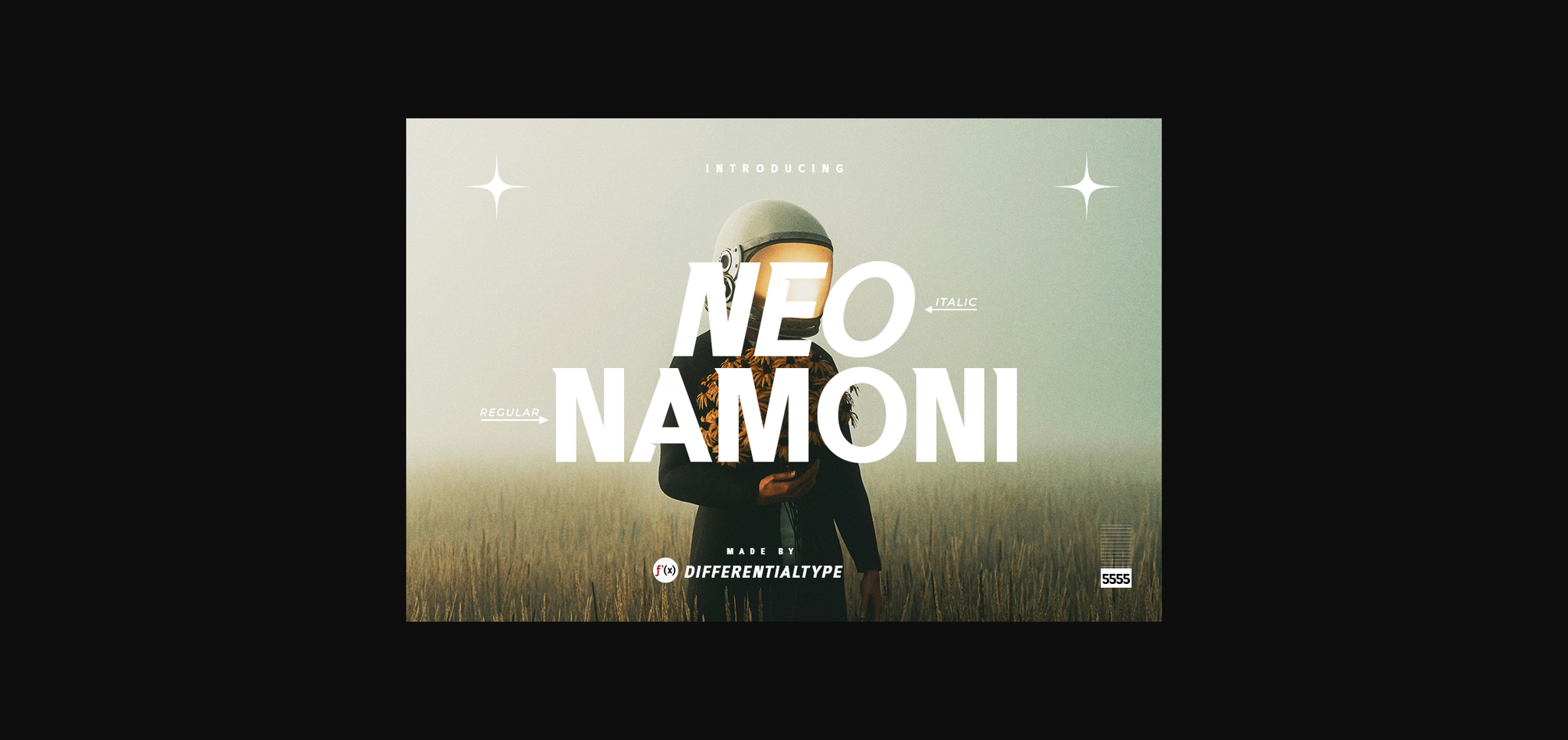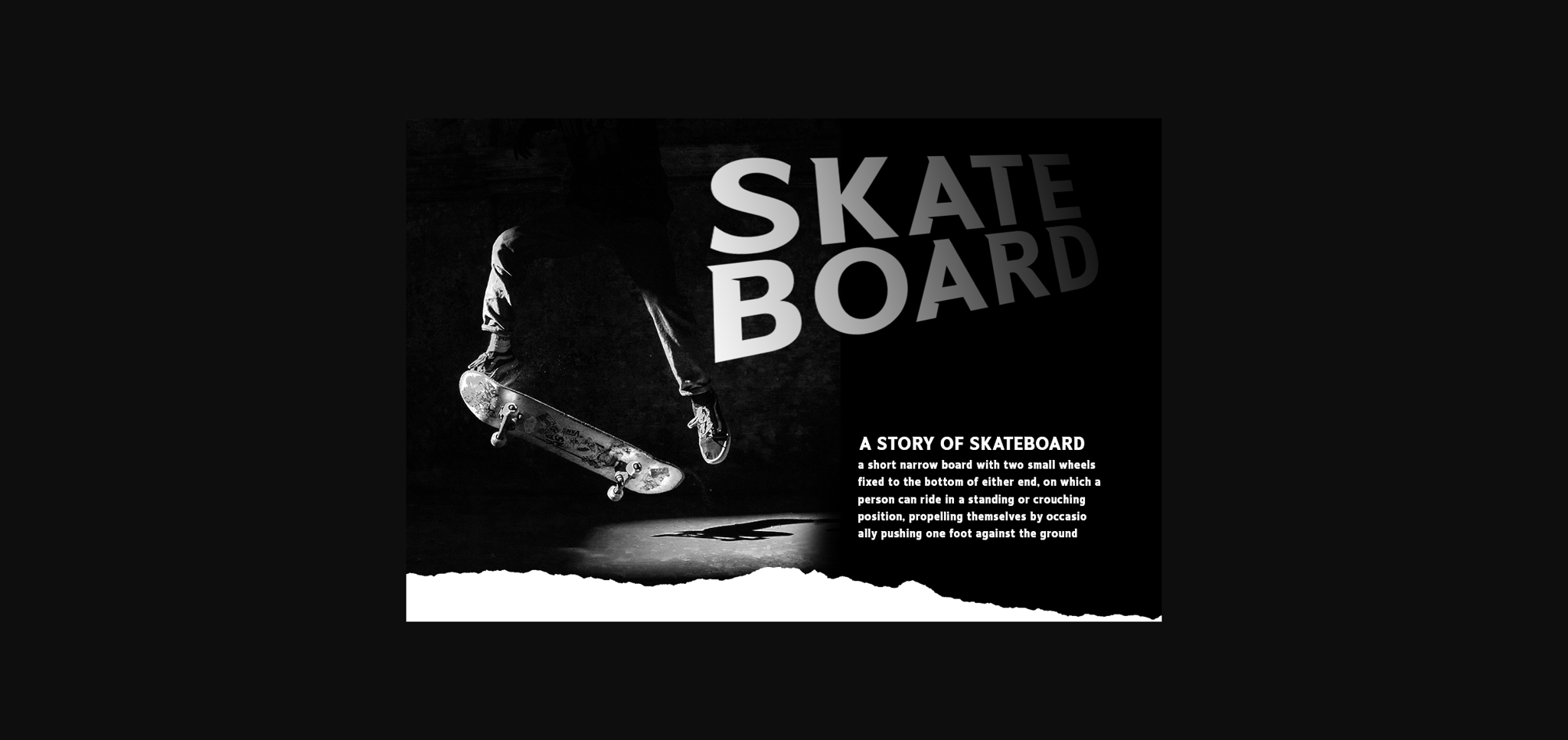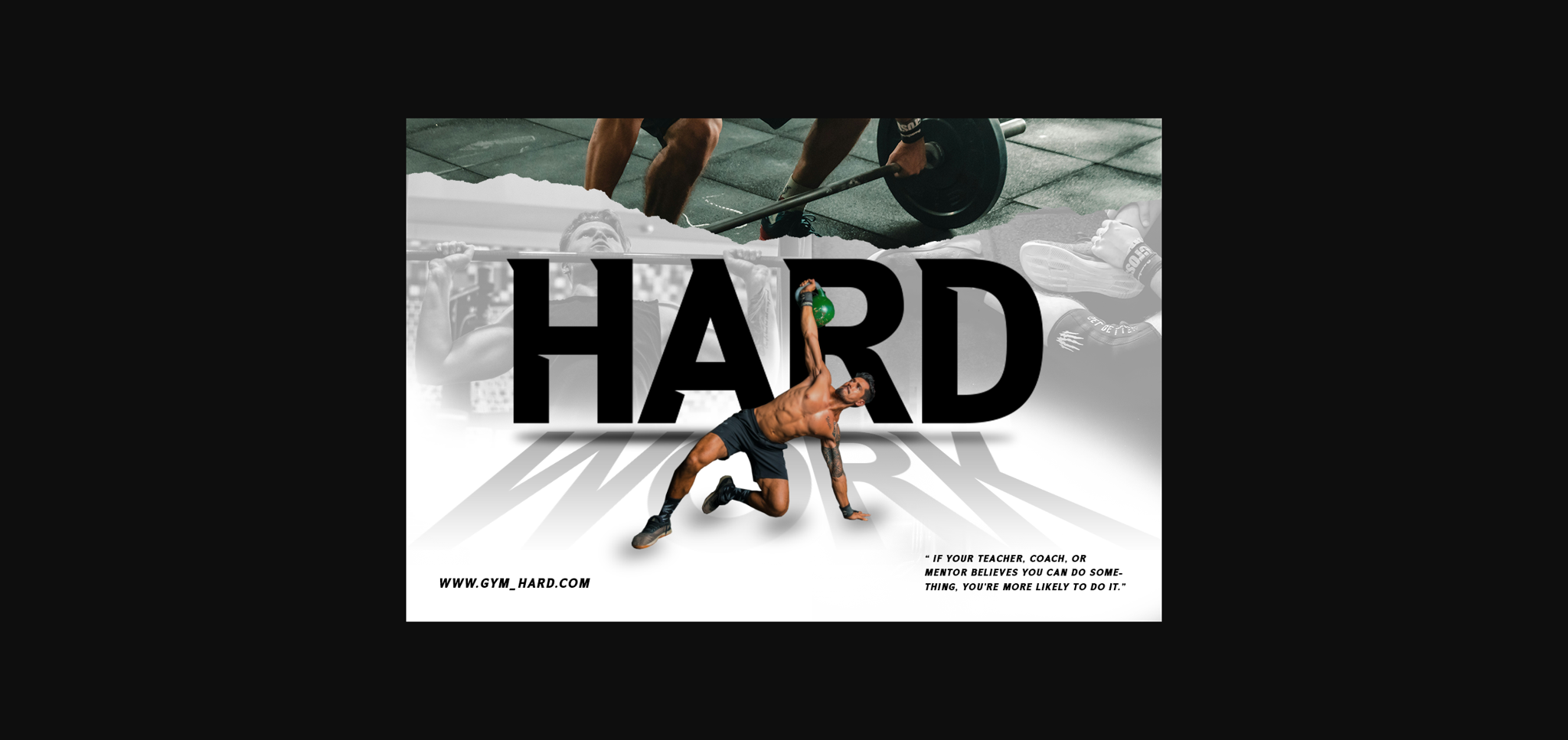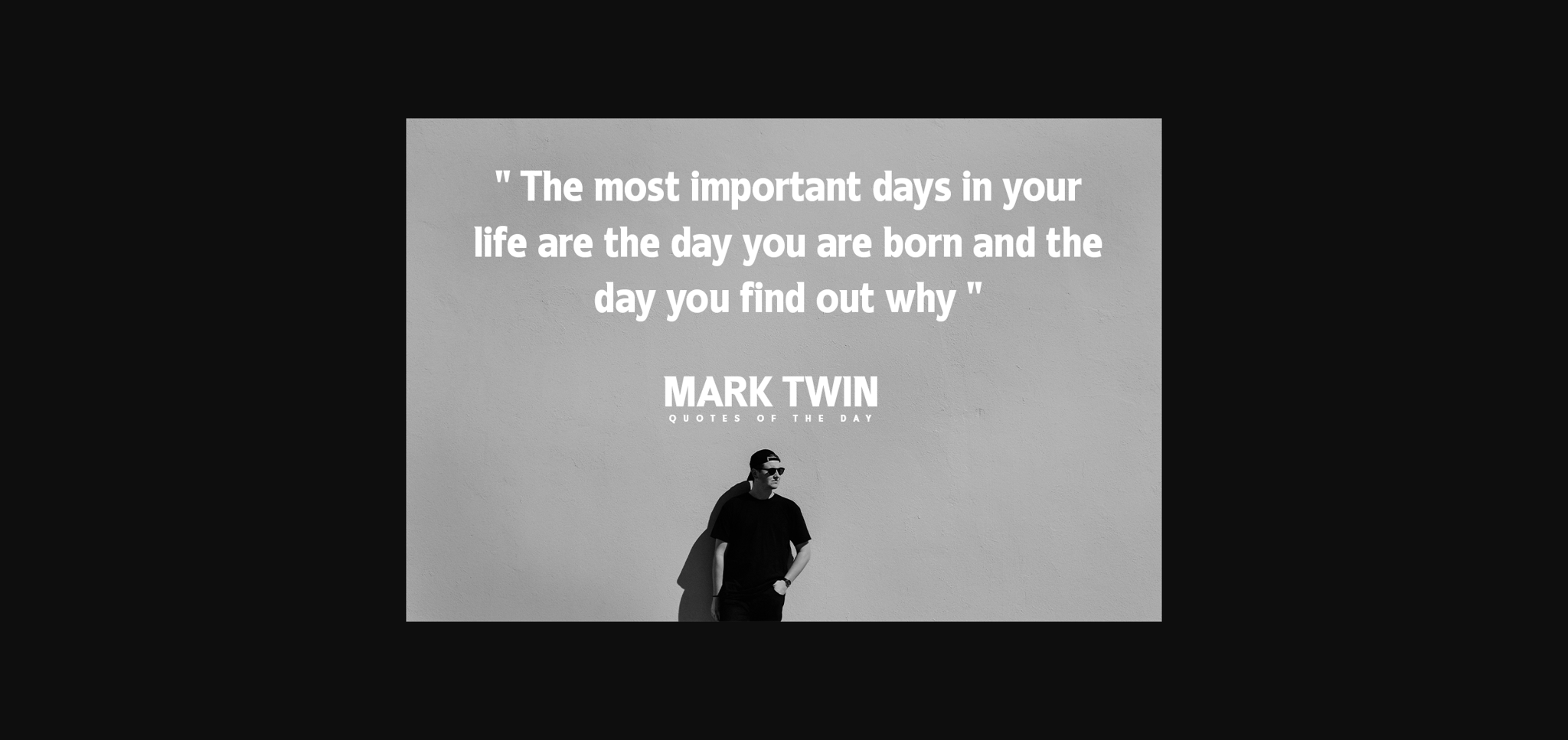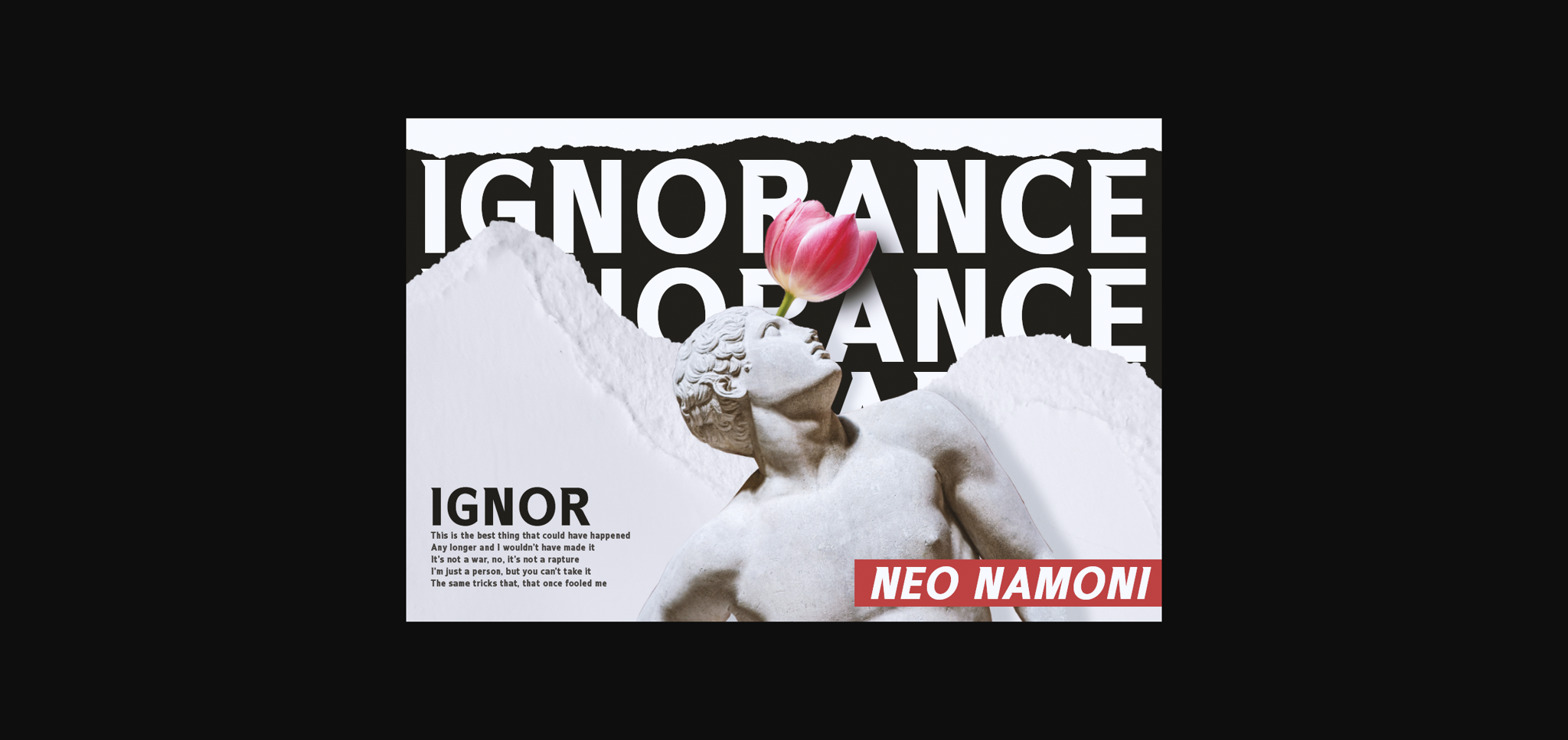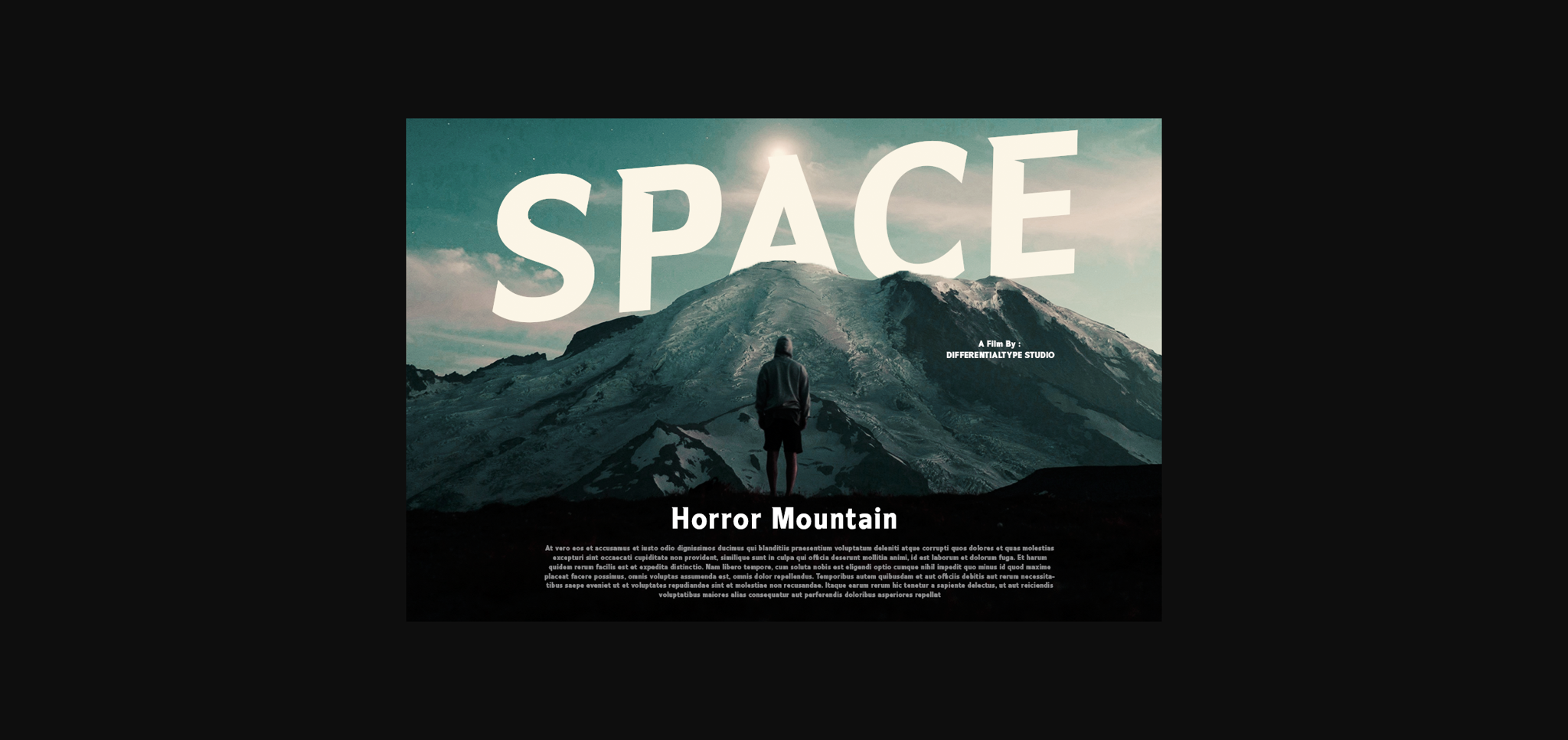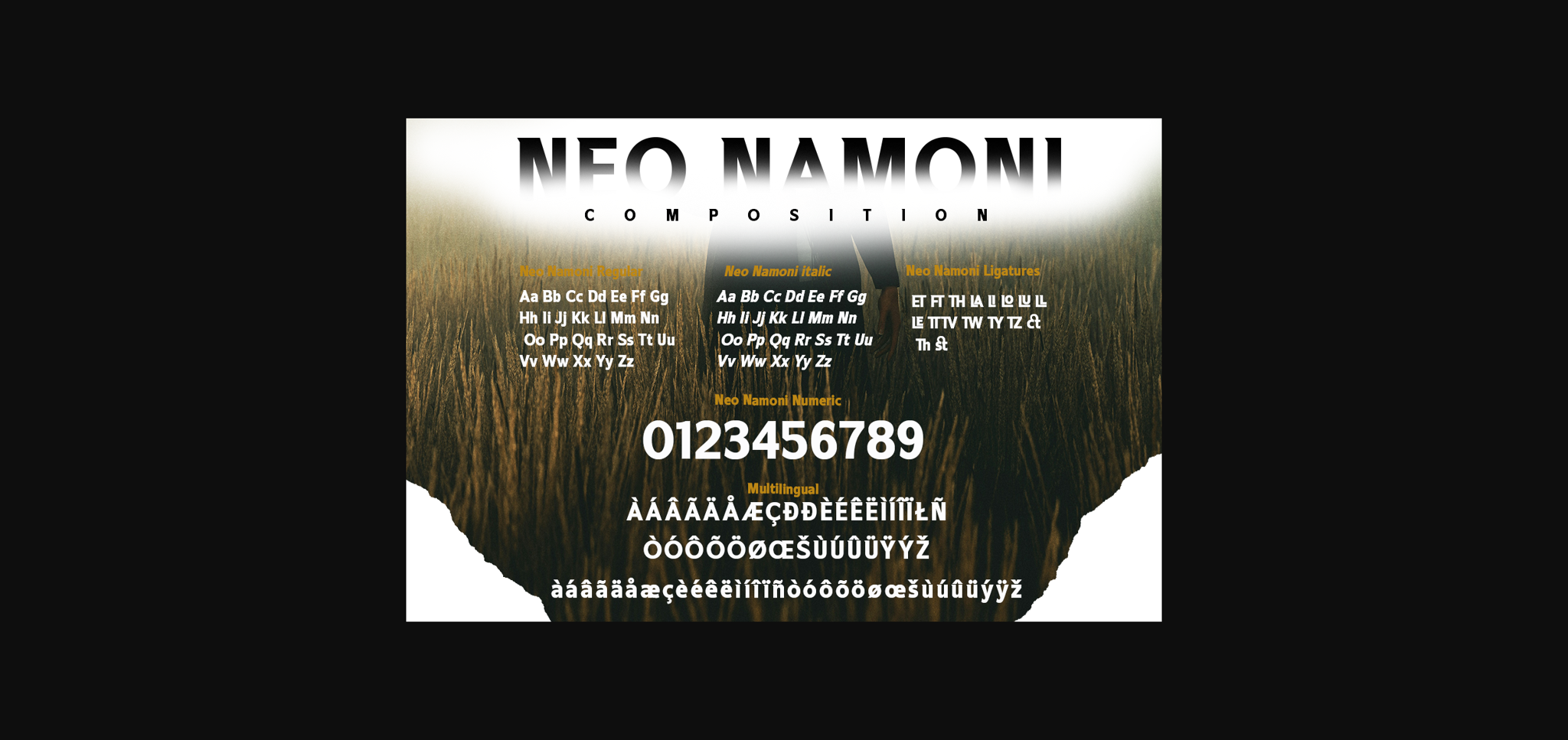
Neo Namoni Font
About Neo Namoni Font
Unveil the modern magnificence of Neo Namoni, a one-of-a-kind, contemporary sans-serif font that embodies a refined minimalist charm. What sets Neo Namoni apart is its unique disposition, making it a standout in the realm of sans-serif typefaces. The symbol of Neo Namoni’s essence is the flawless equilibrium it maintains between its steadfast lines and sinuous curves, radiating an aura of visual potency and resilience. This font is tailored to elevate your title displays, infuse boldness into brand identities, magnify the impact of logos, enhance book design aesthetics, and add panache to other editorial endeavors demanding a commanding presence.